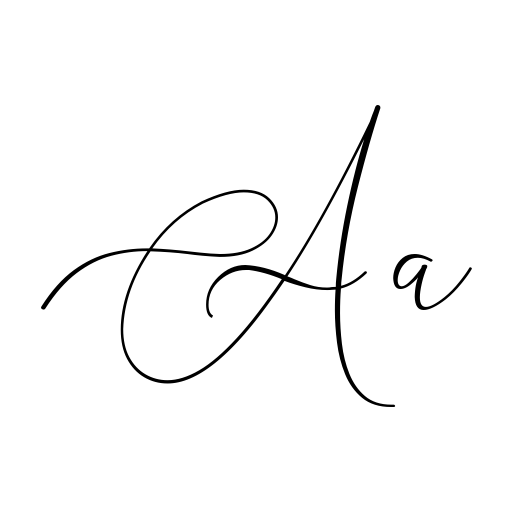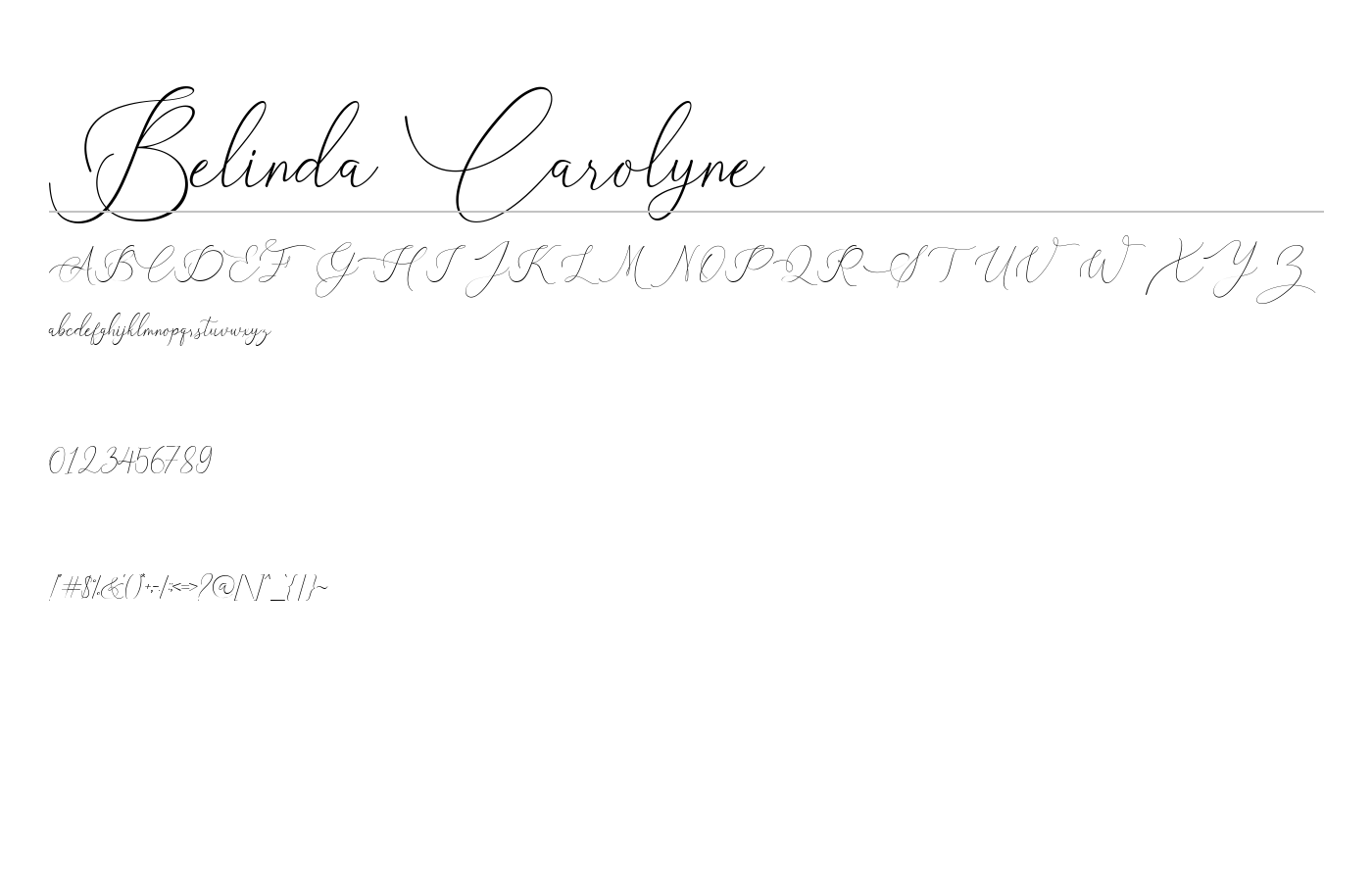
Belinda Carolyne is an elegant and delicate script font featuring fine, flowing lines with graceful loops and swashes that create a sophisticated and feminine feel. Its light weight and handwritten style make it perfect for invitations, branding, and other designs needing a touch of romance and refinement. This font works beautifully in logos, wedding stationery, and upscale editorial projects where a subtle, airy elegance is desired.
Belinda Carolyne Font
About Belinda Carolyne Font